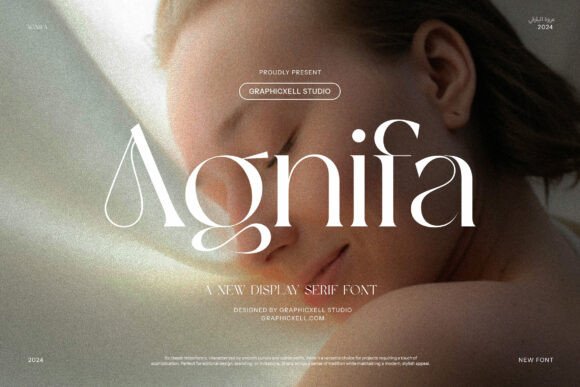
The Elegance of Agnifa: A Sophisticated Ligature Serif Font
I’ll never forget the struggle I faced while working on a high-end fashion brand’s logo design project. The client wanted a font that exuded luxury, sophistication, and elegance. I scoured the internet, tried countless fonts, but nothing seemed to fit the bill. That’s when I stumbled upon Agnifa, a stunning ligature serif font that instantly caught my attention. In this article, I’ll share my experience with Agnifa, its features, and how to make the most of it in your designs.
A Personal Review of Agnifa
What I Love About Agnifa ✨
• 💯 Premium quality: Agnifa’s design is meticulous, with a clear attention to detail that makes it perfect for high-end branding and luxury projects.
• 🔥 Unique ligatures: The font’s ligatures set it apart from regular serif fonts, adding a touch of elegance and sophistication to any design.
• 📚 Versatility: Agnifa is suitable for a wide range of applications, including logos, headlines, titles, invitations, labels, magazines, books, and more.
• 👍 Ease of use: The font is easy to read and works well in various contexts, from digital to print.
While Agnifa is an exceptional font, there are a few minor limitations to consider:
• 🤔 Ligature limitations: Some ligatures may not work well in certain contexts, such as in long paragraphs or body text.
• ⚠️ Font size limitations: Agnifa is best used at larger font sizes (18pt+); it may lose legibility at smaller sizes.
The Story Behind Agnifa
Agnifa was designed with the intention of creating a sophisticated, luxurious font that would cater to the needs of high-end brands and designers. The design process involved meticulous attention to detail, with a focus on creating a unique and elegant ligature serif font. The result is a font that’s both refined and stylish, perfect for a wide range of applications.
Q: What is Agnifa’s primary use?
A: Agnifa is primarily designed for luxury branding, advertising, and high-end design projects.
Q: Does Agnifa support OpenType features?
A: Yes, Agnifa supports OpenType features, including ligatures, stylistic alternates, and glyphs.